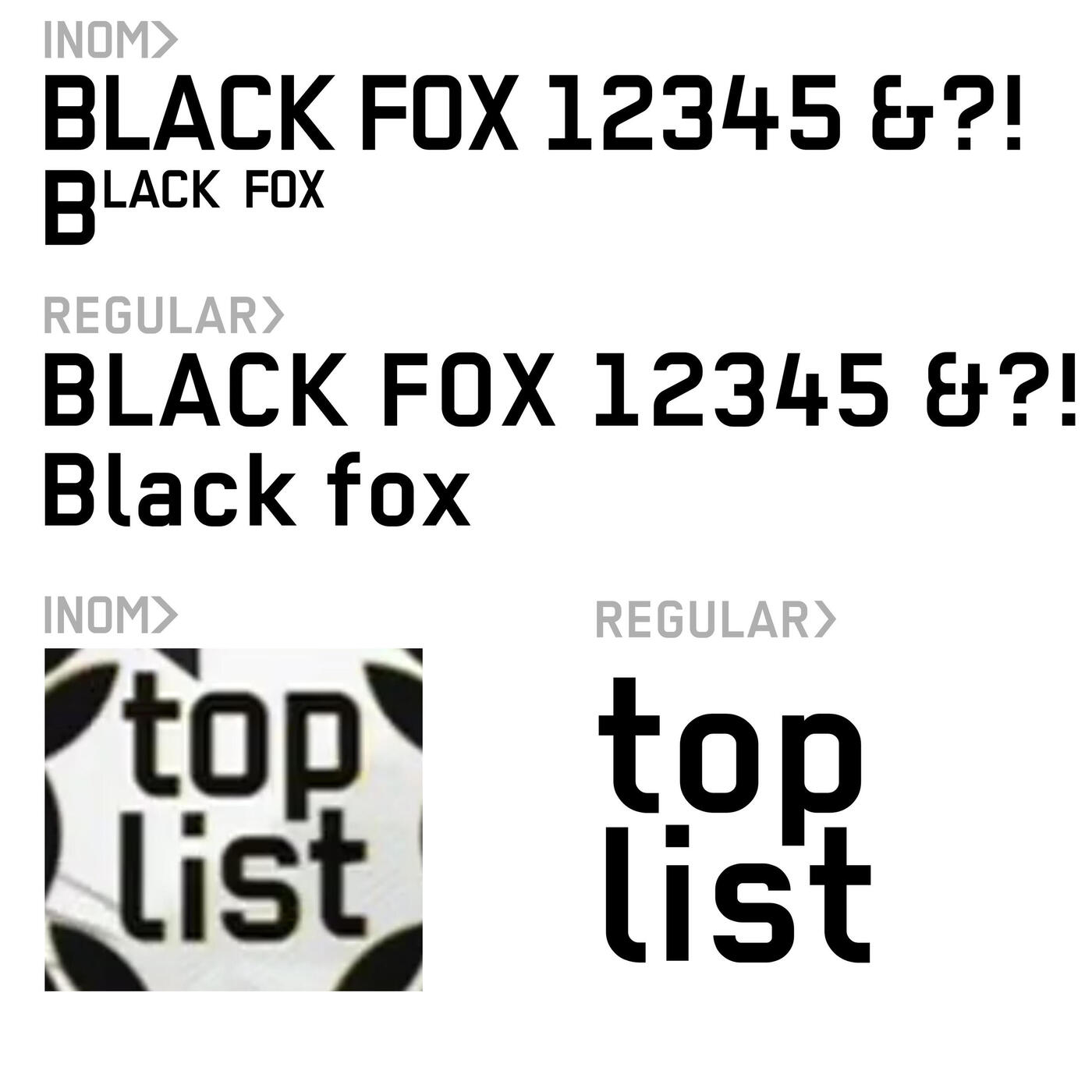
Looking for the rare full version of the VIVA Plus “Inom” typeface with lowercase letters
For the past two years, I’ve been deeply involved in researching the “Inom” typeface, which was used between 2002 and 2007 by the German music TV channel VIVA Plus. It was originally designed exclusively for VIVA Plus by Chris Rehberger, but was also used in other projects – for example, in the corporate design of Hebbel am Ufer (a Berlin theatre) and in the NRW Tourismus logo (tourism board of the German state of North Rhine-Westphalia). However, its main and most recognizable use was on VIVA Plus, where it was featured across the entire on-air design.
Recently, I finally managed to find an almost complete version of Inom - exactly as it appeared on VIVA Plus for years: with all uppercase letters, numbers, and most of the essential special characters. Only a few characters, such as the tilde (~), are missing, which I can substitute from the Regular variant (a very similar typeface by Nik Thoenen, inspired by Inom).
My current goal:
I am now searching for the rare extended version of Inom that also includes lowercase letters. This version was only used briefly in 2006 on VIVA Plus (for example, in SMS crawls after a system update). The lowercase version has existed since 2002, as it appears for brief moments in certain intro animations, but it was not actively used for most of the channel’s run – which makes it extremely hard to find today.
Why the Regular isn’t a perfect substitute:
Although the Regular looks very similar at first glance, there are important differences – especially in rounded letters and certain symbols like “@” and “#”. These differences are even more noticeable in lowercase letters than in uppercase ones.
Previous research:
• Hebbel am Ufer PDFs: Only uppercase letters were embedded in the files, as that’s all they used in their designs.
• NRW Tourismus PDFs: The original Inom was used for the logo, but headings were set in Regular. As a result, the embedded fonts in these files are only Regular, not Inom.
Conclusion:
I’ve achieved my main goal of obtaining the “classic” VIVA Plus version. Now, the last 10 % towards completion would be finding the version with true lowercase letters. If anyone owns this version or knows a source where it could be found, it would be an amazing find for me. This is a long-term passion project, important to me even if it’s “only” for private fan projects, cards, or stickers.